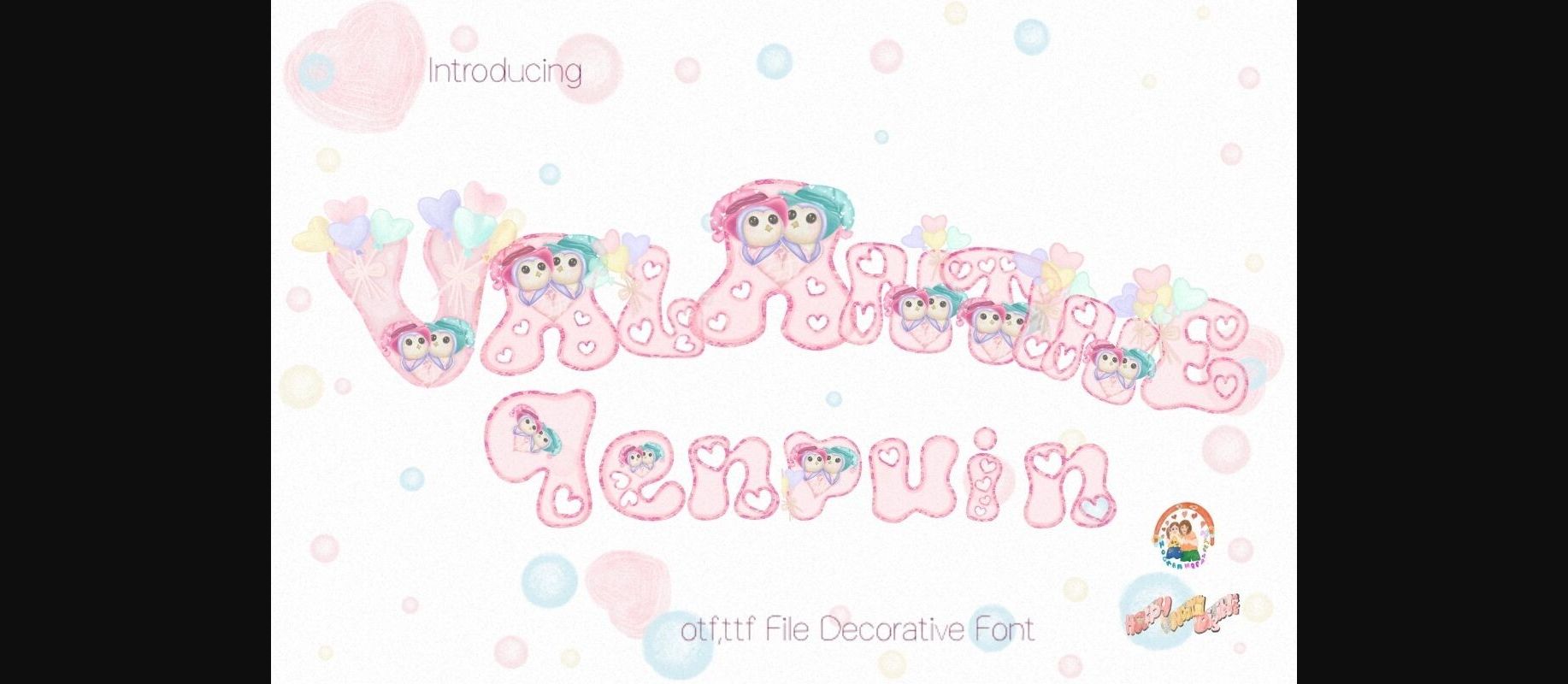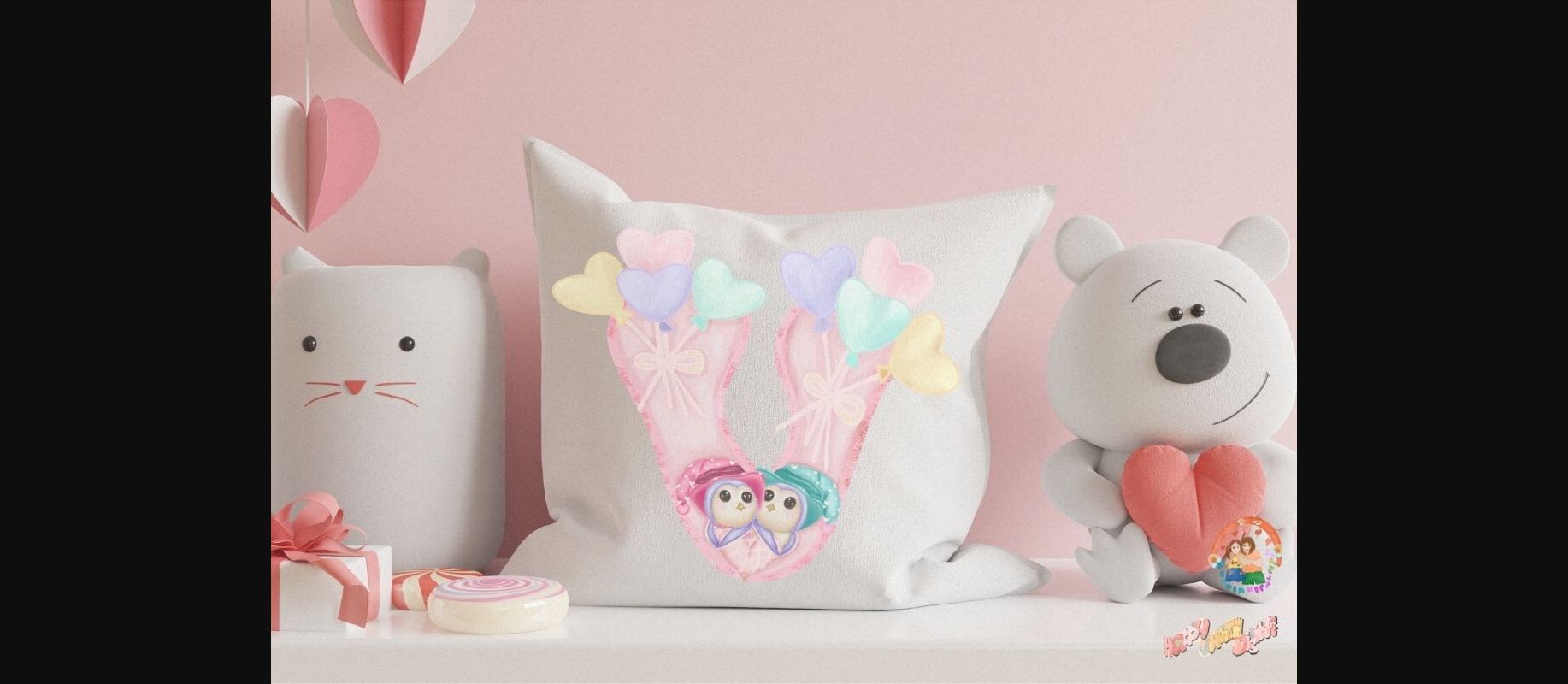
About Valentine Penquin Font
Introduction “Valentine Penguin Cute decorative font” is a playful and stylish font.
With a youthful spirit is suitable for both progressional-looking.
Projects such as as branding designs, labels, websites, and business cards as well as casual designs like packaging, posters, flyers, quotes, social media posts, invitations, special occasions cards, etc
With a youthful spirit is suitable for both progressional-looking.
Projects such as as branding designs, labels, websites, and business cards as well as casual designs like packaging, posters, flyers, quotes, social media posts, invitations, special occasions cards, etc